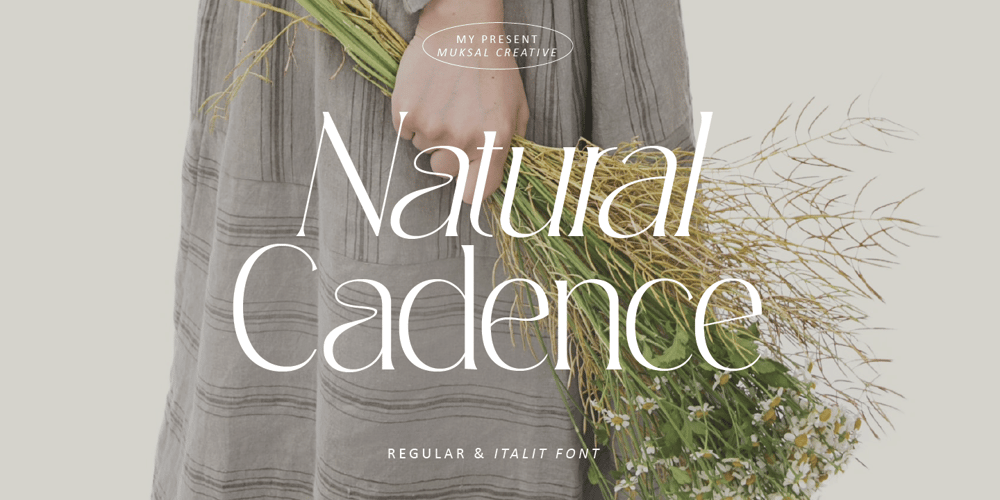
Natural Cadence Font Family was designed by Muksalmina and published by Muksal Creatives. Natural Cadence contains 2 styles and family package options. Natural Cadence Modern serif Font typeface with beautiful alternate, special glyphs, ornament and multilingual support. It’s a very versatile font that works great in large and small sizes. Perfect for editorial projects, Logo design, Clothing Branding, product packaging, magazine headers, or simply as a stylish text overlay to any background image.Accented charactersMultiple Languages SupportedFeatures:Lowercase and UppercaseAlternateNumerals & Punctuation